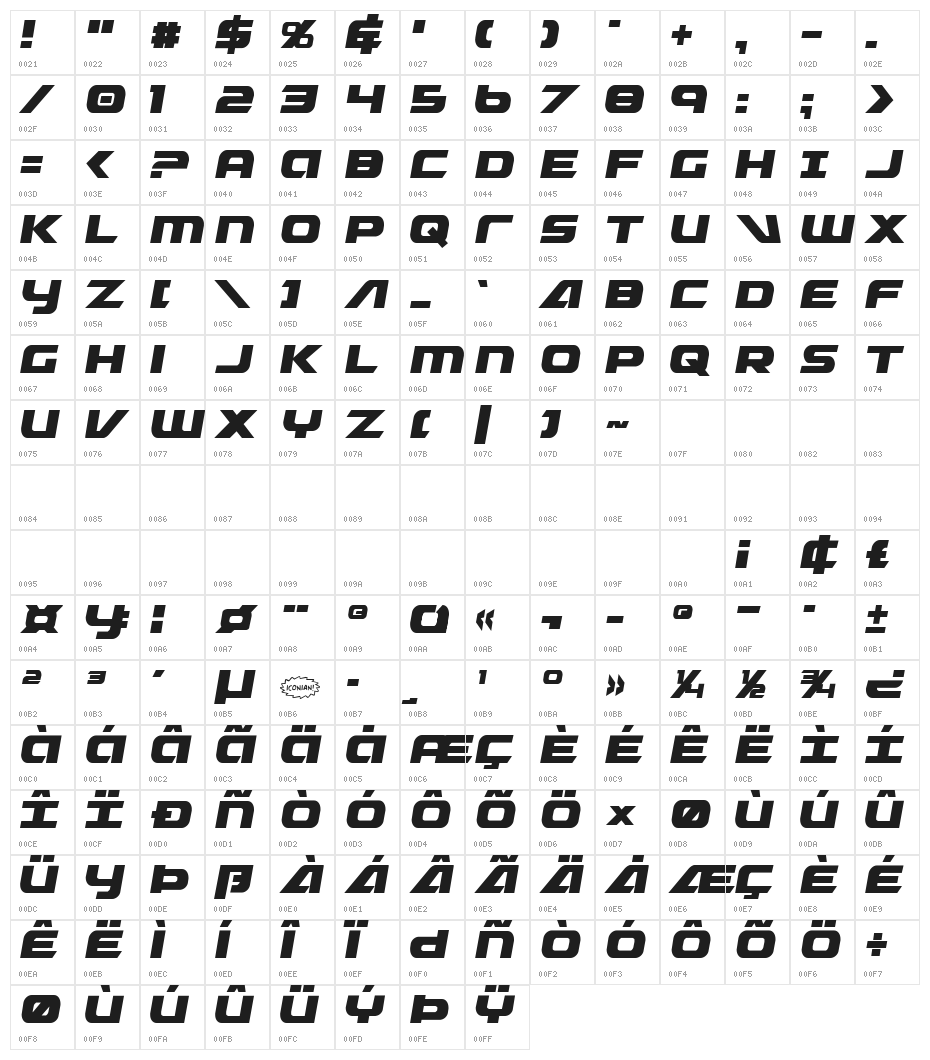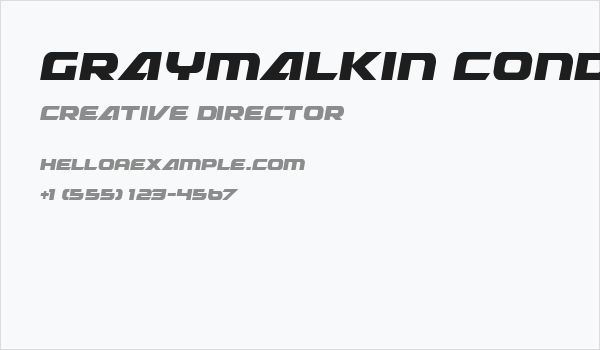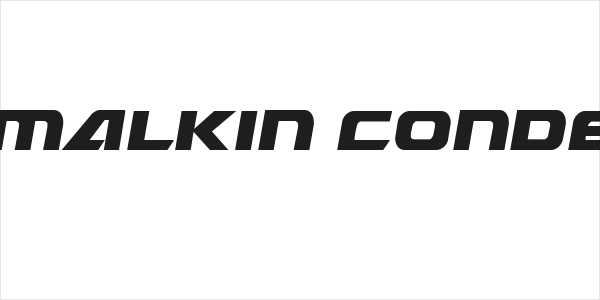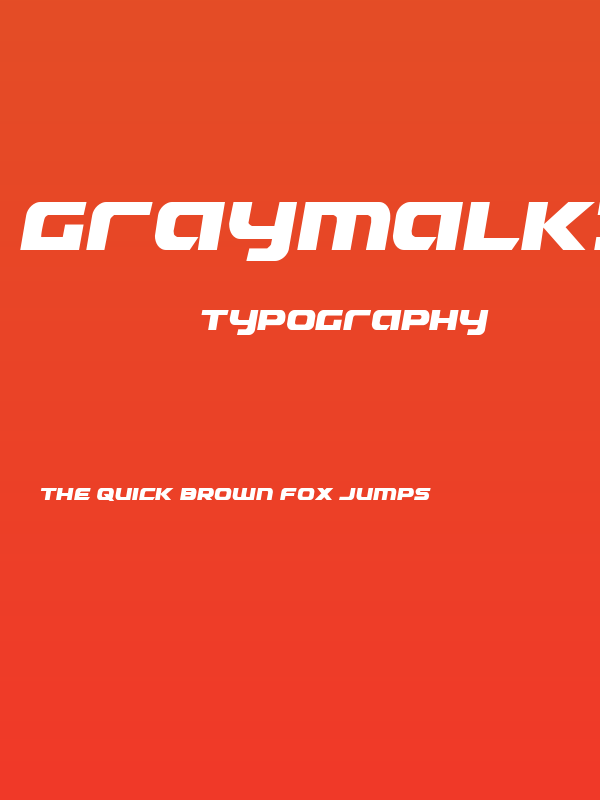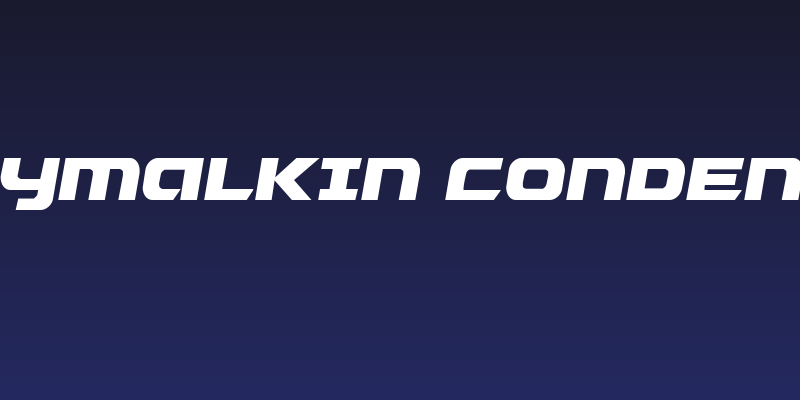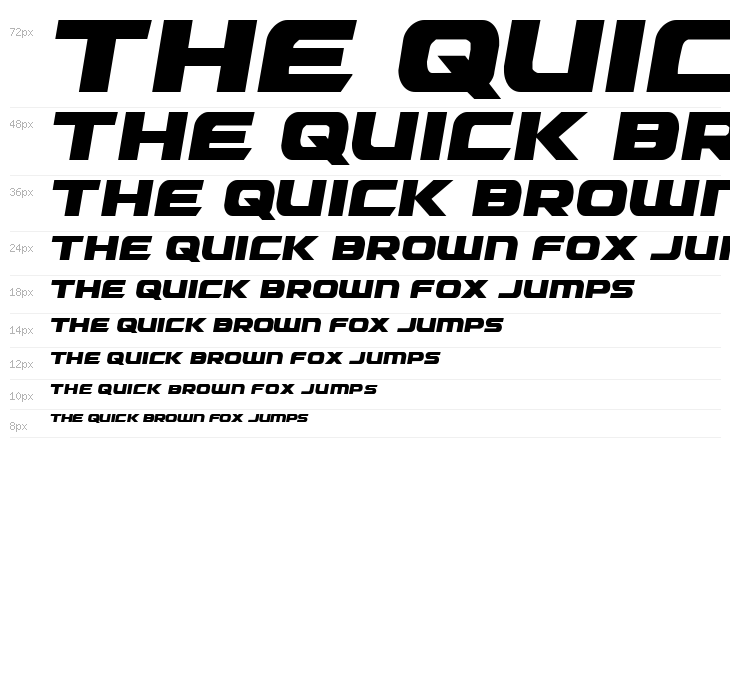
Graymalkin Condensed Font
Graymalkin Condensed Description
This font features a bold and dynamic style with a futuristic and sporty appearance. The characters are slightly slanted, giving a sense of motion and speed. The design is condensed, allowing for efficient use of space while maintaining readability. The strokes are thick and consistent, providing a strong visual impact. The overall look is modern and sleek, making it suitable for projects that require a bold statement. The numerals and special characters are designed to match the boldness and style of the alphabet, ensuring a cohesive appearance across all text elements.
Proposed ProjectsIdeal for sports branding, automotive designs, tech-related projects, and dynamic headlines.